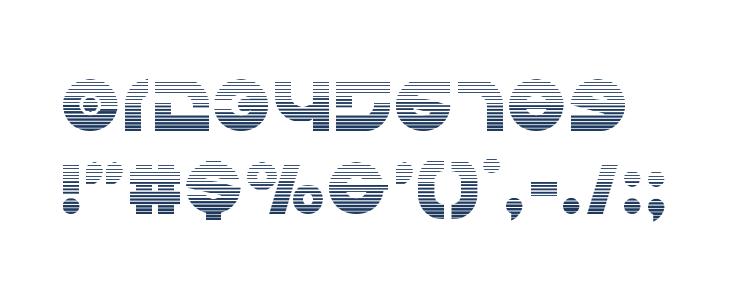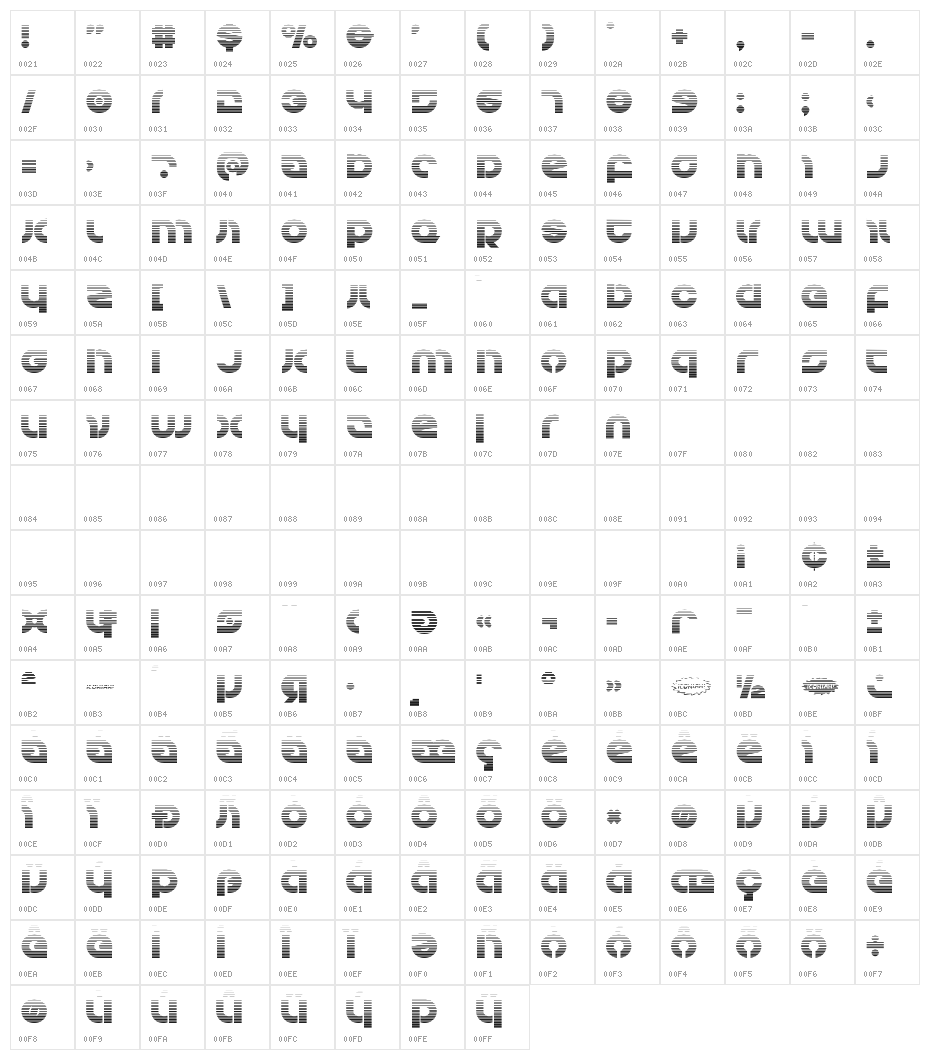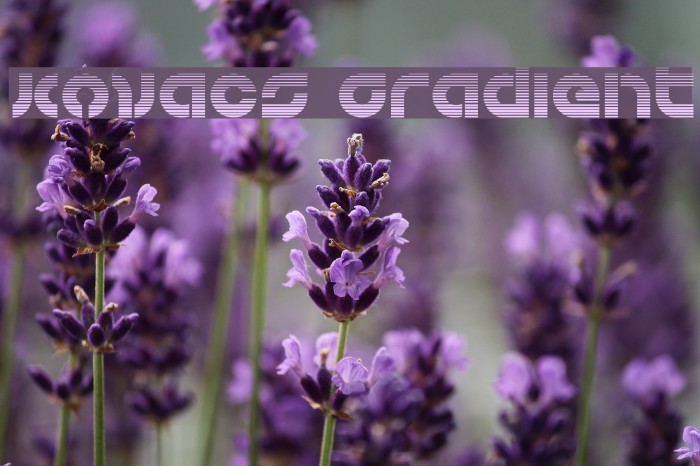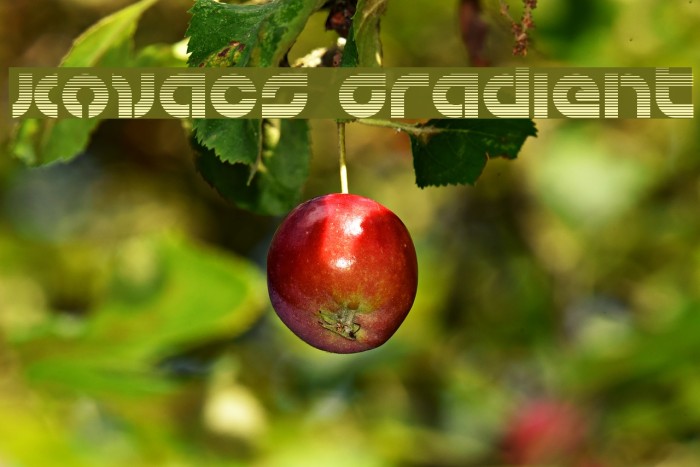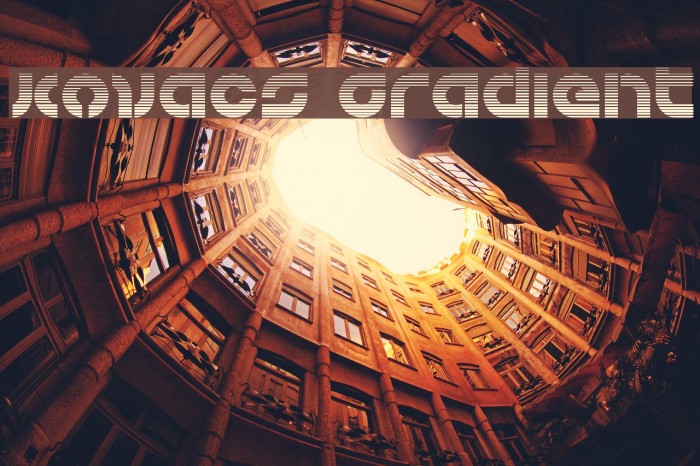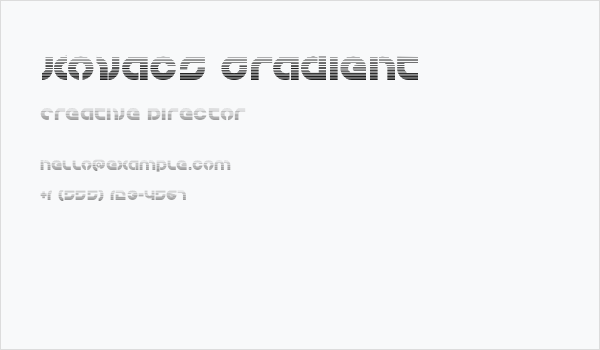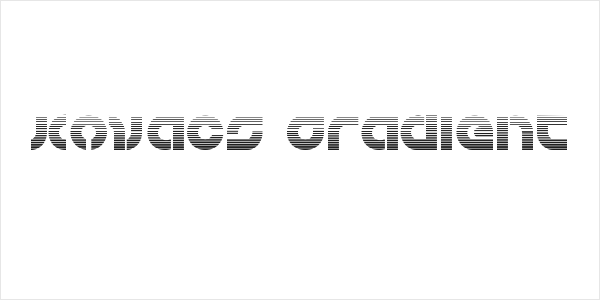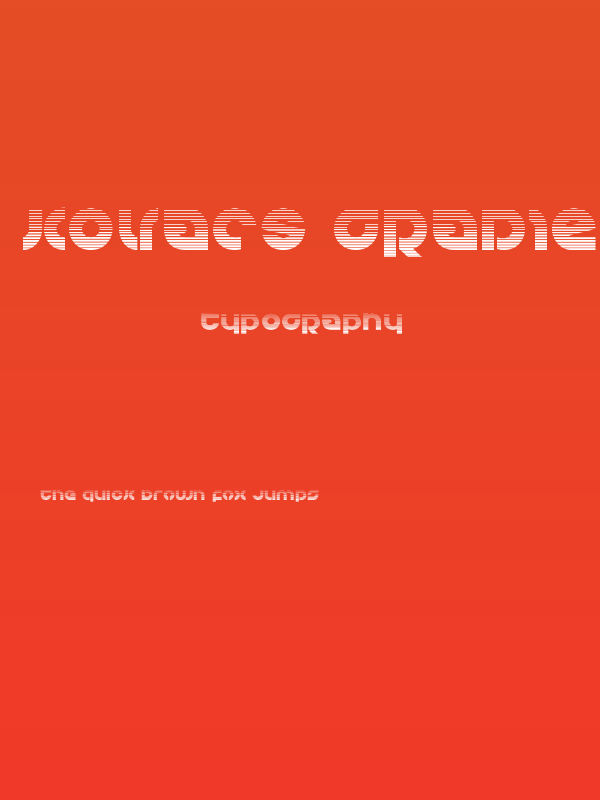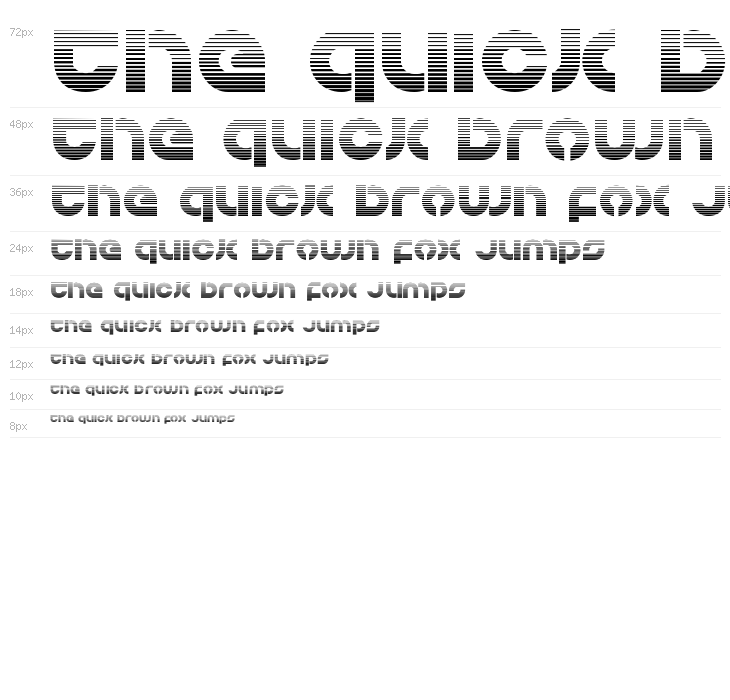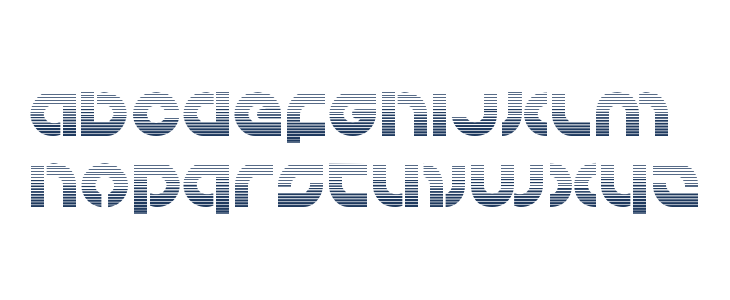
Kovacs Gradient Font
Kovacs Gradient Description
This font features a unique gradient stripe pattern across each character, creating a visually striking effect. The letters are bold and rounded, with a futuristic and digital aesthetic. The horizontal lines within each character give it a sense of movement and depth, making it stand out in any design. The uppercase and lowercase letters maintain a consistent style, while the numbers and special characters complement the overall look. This font is perfect for projects that require a modern and edgy feel, such as tech-related branding, digital art, or contemporary posters.
| Proposed Projects | Ideal for tech branding, digital art, modern posters, and edgy graphic designs. |